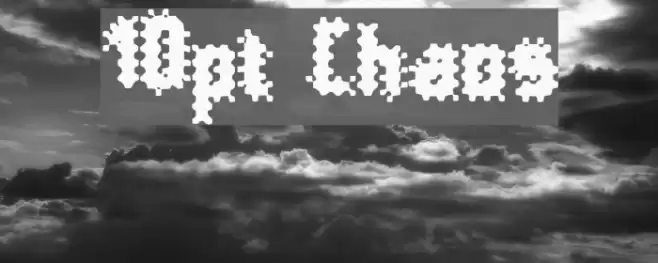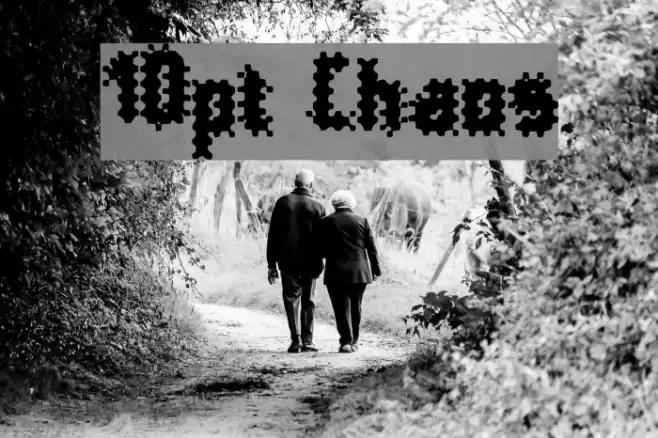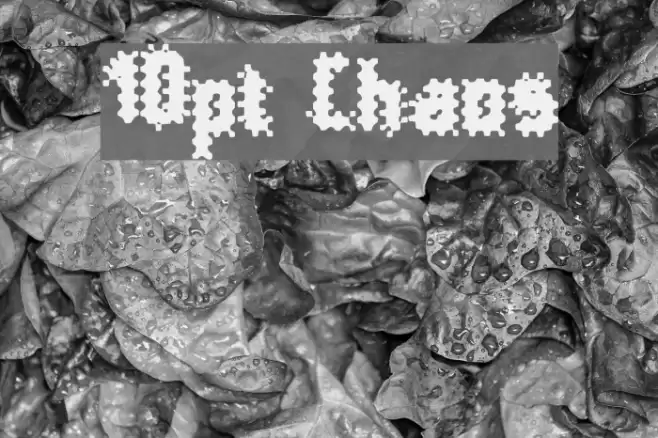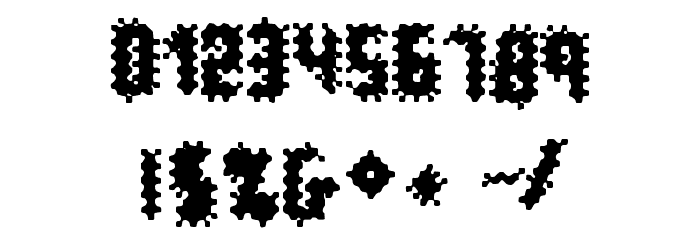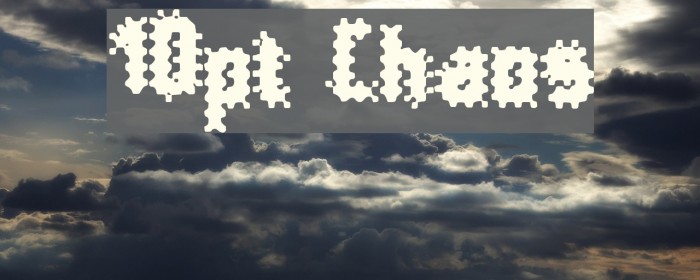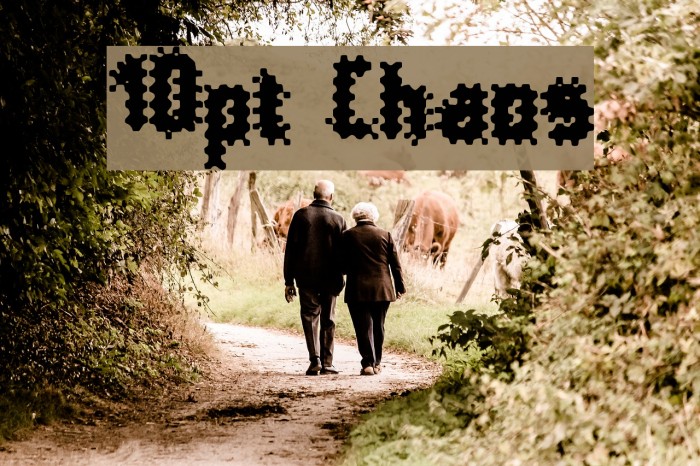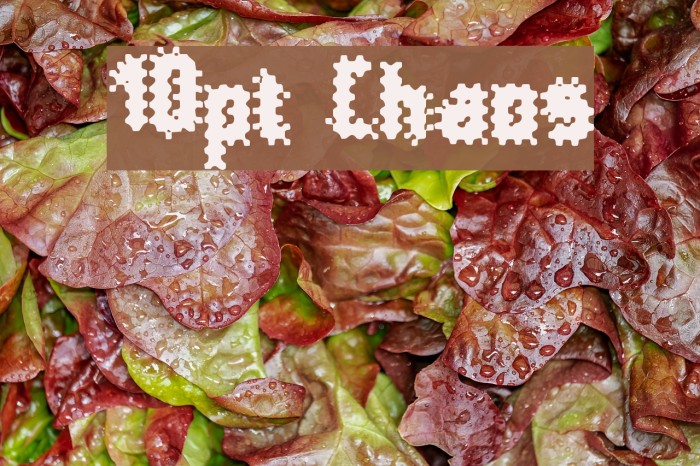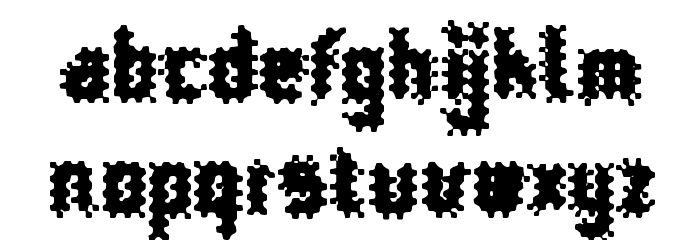
10pt Chaos Font
10pt Chaos Description
This font features a highly irregular and chaotic design, with each character appearing as if it's constructed from a series of jagged, puzzle-like pieces. The edges are rough and uneven, giving the font a unique, distressed appearance. Despite its chaotic nature, the characters remain legible, with each letter and number maintaining a distinct form. The font's bold and heavy weight adds to its dramatic impact, making it stand out in any design. The spacing between characters is relatively tight, which helps maintain readability despite the intricate details of each glyph. This font's distinctive style makes it ideal for projects that require a bold, unconventional look.
A bold, chaotic font with jagged, puzzle-like characters from Uncategorized fonts.
- Proposed Projects: Ideal for album covers, posters, or any design requiring a bold, unconventional aesthetic.
- Character Spacing: Tight